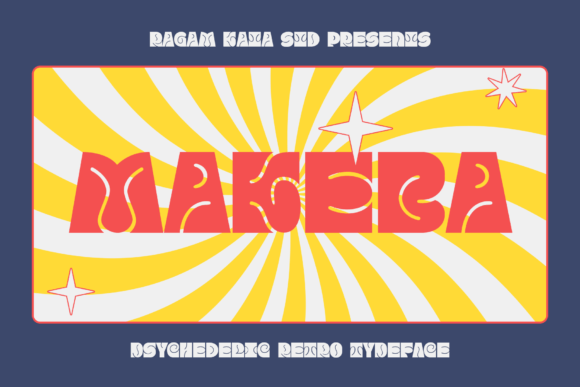
Unleash your creative spirit with Makeba Font, a psychedelic-inspired display font that exudes individuality and makes a bold statement. Dive into the world of retro graphics and vintage aesthetics, where Makeba's strong and bold characters dance across your designs, captivating your audience.
Picture this: a music poster with Makeba as the star, its vibrant and funky letters harmonizing perfectly with the rhythm of your melody. Or envision an album cover where Makeba's distinct style dances in sync with the beats, creating an unforgettable visual experience. Let your imagination soar as you craft book titles that pop off the page, demanding attention with Makeba's eye-catching presence.
With Makeba, you'll discover a world of endless possibilities, where retro and modern collide in perfect harmony. Its psychedelic charm adds a touch of vintage flair, transporting you back to an era of artistic revolution. Whether you're a graphic designer seeking unique fonts for your projects or a creative soul yearning for self-expression, Makeba is your perfect companion.
Experience the power of Makeba today and let your designs shine with psychedelic brilliance. Embrace the bold, the funky, and the utterly captivating. Unleash your creativity and let Makeba take you on a journey where imagination reigns supreme.